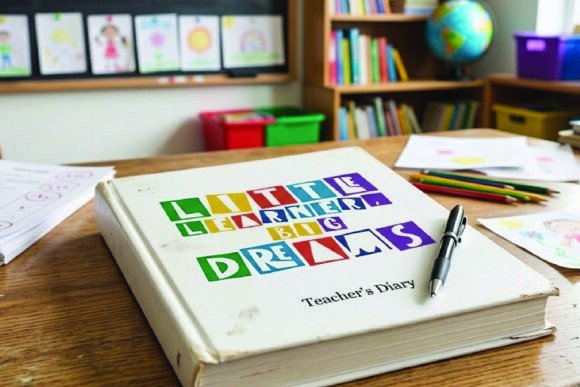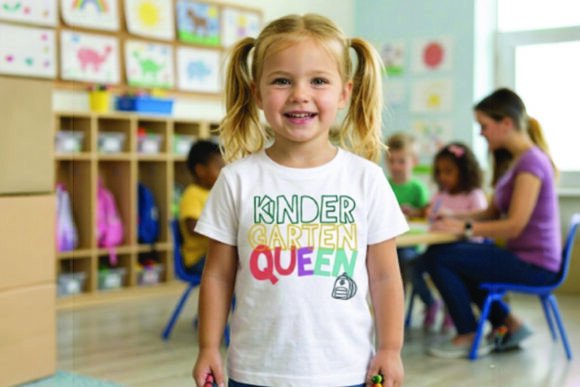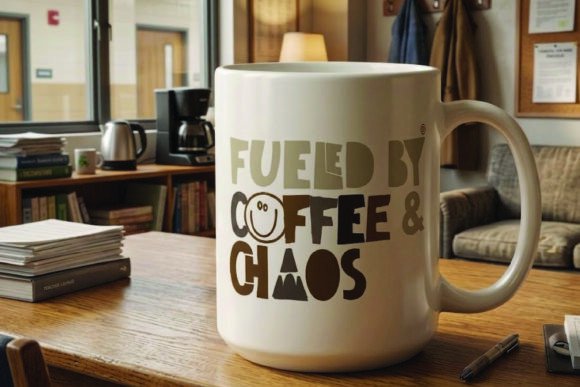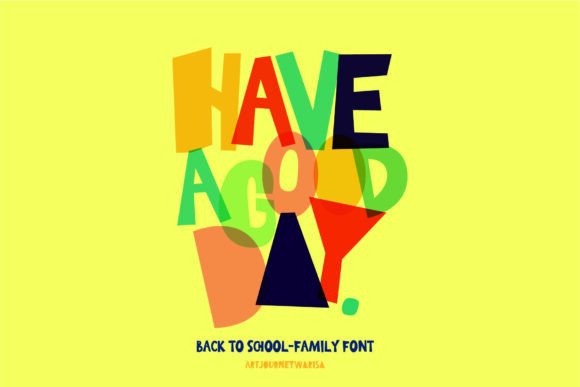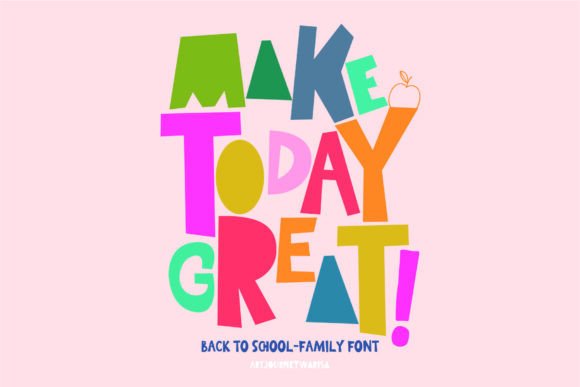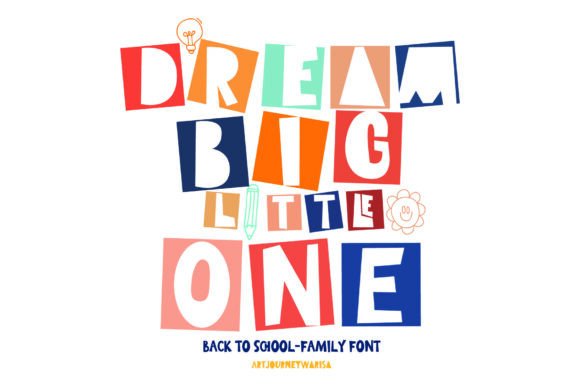
Bring the Joy of the Classroom to Your Designs with the “Back to School Family Font” Bundle! 🍎✏️
Are you a teacher, parent, or crafter looking to add a playful and creative touch to your designs? Look no further than the “Back to School Family Font” bundle! This comprehensive font collection is perfect for anyone who wants to bring the joy of the classroom to their projects. Whether you’re creating classroom decor, personalized gifts, or fun apparel, this font family has everything you need to make your designs pop!
What is the “Back to School Family Font” Bundle?
The “Back to School Family Font” bundle is a carefully curated collection of fonts that are designed to evoke the playful and creative spirit of the classroom. With a range of font styles to choose from, you’re sure to find the perfect fit for your project. From bold and playful to whimsical and handwritten, this font family has something for everyone.
Key Features of the “Back to School Family Font” Bundle
- Multiple Font Styles: The “Back to School Family Font” bundle includes a range of font styles, from bold and playful to whimsical and handwritten.
- Handcrafted and Whimsical: Each font in the bundle has been carefully crafted to bring a touch of whimsy and personality to your designs.
- Perfect for Classroom Decor: Whether you’re a teacher or parent, this font bundle is perfect for creating classroom decor that is both fun and engaging.
- Personalized Gifts: Use the “Back to School Family Font” bundle to create personalized gifts for teachers, students, or friends.
- Fun Apparel: Create fun and playful apparel for teachers, students, or school events with this versatile font bundle.
Why Choose the “Back to School Family Font” Bundle?
With so many font bundles on the market, why choose the “Back to School Family Font” bundle? Here are just a few reasons:
- Unique and Creative: This font bundle is designed to bring a touch of creativity and personality to your designs.
- High-Quality Fonts: Each font in the bundle has been carefully crafted to ensure high-quality and legibility.
How to Use the “Back to School Family Font” Bundle
Using the “Back to School Family Font” bundle is easy! Here are just a few ideas to get you started:
- Classroom Decor: Use the fonts in this bundle to create fun and engaging classroom decor, such as bulletin board headers, posters, and charts.
- Personalized Gifts: Create personalized gifts for teachers, students, or friends, such as customized mugs, t-shirts, or tote bags.
- Fun Apparel: Design fun and playful apparel for teachers, students, or school events, such as t-shirts, hoodies, or hats.
- Stationery and Invitations: Use the fonts in this bundle to create custom stationery, invitations, or greeting cards.
Tips and Tricks for Using the “Back to School Family Font” Bundle
Here are a few tips and tricks to help you get the most out of the “Back to School Family Font” bundle:
- Experiment with Different Font Styles: Don’t be afraid to try out different font styles to find the one that works best for your project.
- Mix and Match Fonts: Combine different fonts in the bundle to create a unique and creative look.
- Use Colors and Graphics: Add colors and graphics to your designs to make them more engaging and fun.
The “Back to School Family Font” bundle is a must-have for anyone who wants to bring the joy of the classroom to their designs. With its range of playful and creative font styles, this bundle is perfect for teachers, parents, and crafters who want to add a handcrafted, whimsical touch to their projects. So why wait? Download the “Back to School Family Font” bundle today and start creating!